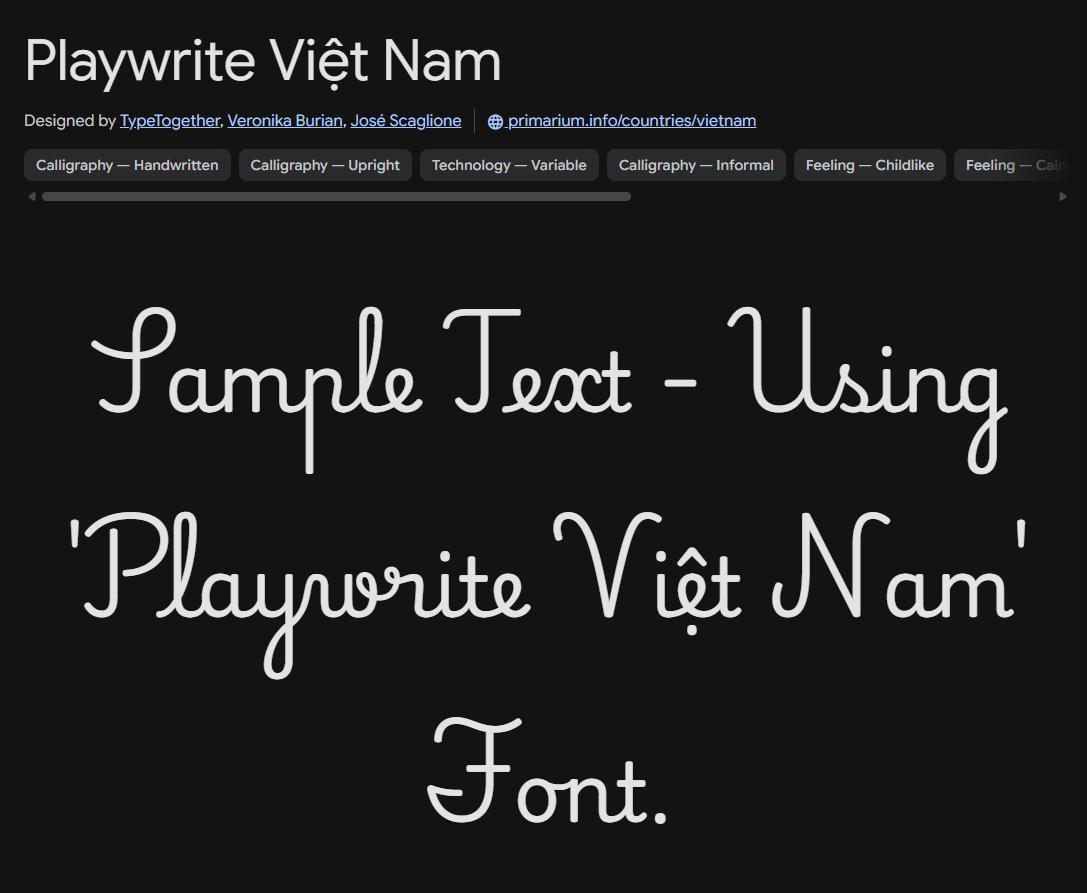
Playwrite Việt Nam, a specialized typographic solution engineered by TypeTogether's Veronika Burian and José Scaglione, bridges the gap between traditional Vietnamese primary school calligraphy and modern digital pedagogy through its sophisticated single-axis variable font architecture. By utilizing advanced interpolation to modulate weight, the typeface meticulously preserves the structural integrity of complex diacritic stacks and rhythmic ductus inherent to the region's handwriting standards. This variable implementation allows for seamless adjustments in stroke thickness without sacrificing the clarity of glyph terminals or the specific proportions required for early-age literacy, providing a semantically rich tool that harmonizes the technical precision of OpenType technology with the fluid, manual aesthetics of national educational scripts.
The Playwrite Việt Nam font family represents a sophisticated fusion of variable technology and educational typography, presenting an upright calligraphic structure that meticulously captures the informal, handwritten nuances of primary school curricula. By utilizing a variable axis to modulate between a rugged, vintage texture and a calm, childlike simplicity, the typeface achieves a versatile semantic resonance that ranges from loud, expressive bursts to a stable, happy, and playful aesthetic. This font family serves as a technically robust bridge between traditional penmanship and digital rendering, employing advanced glyph mapping to ensure that its humanistic, calligraphic origins remain legible and authentic across diverse visual environments.
Playwrite Việt Nam, meticulously engineered by TypeTogether to adhere to the cursive pedagogy of the Vietnamese primary education system, is fundamentally unsuitable for high-stakes enterprise environments such as legal document processing or real-time medical diagnostic interfaces where rapid cognitive processing of dense alphanumeric strings is critical. While its single variable weight axis offers fluid typographic flexibility, the font's inherent cursive ductus and continuous stroke joins-modeled after local instructional handwriting standards-introduce significant legibility barriers in low-resolution digital displays or complex data visualizations requiring high semantic clarity. Consequently, this typeface should be avoided in industrial safety signage or financial reporting dashboards, as its stylistic adherence to school-script morphology lacks the neutral aesthetic and structural rigidity of high-performance sans-serifs designed for institutional accessibility and transactional reliability.
Playwrite Việt Nam pairs naturally with minimalist, organic, or education-focused design styles that emphasize hand-drawn authenticity and personal connection. By integrating a continuous stroke architecture, the font achieves a high degree of fluid continuity that aligns perfectly with modern neo-humanist layout principles.
The typeface meticulously positions stacked diacritics to ensure they remain distinct and readable within the vertical rhythm of the script. Advanced anchor point positioning prevents collision between high-accent marks and neighboring glyphs, maintaining structural integrity across the entire UTF-8 Vietnamese character range.
While primarily optimized for editorial accents and display purposes, its clear letterforms allow for short-to-medium paragraph blocks in creative contexts. The x-height to ascender ratio is specifically calibrated to minimize ocular fatigue, though its cursive nature caps optimal legibility at a 16px threshold for dense body copy.
Geometric sans-serifs like Montserrat or clean grotesques like Inter provide a stable, neutral foundation that contrasts with the font's rhythmic curves. Utilizing a low-contrast sans-serif prevents visual competition, allowing the secondary typeface to serve as a structural backbone while Playwrite functions as the primary stylistic focal point.
The connected strokes and decorative loops can lead to visual crowding when the font size is significantly reduced on digital displays. Real-world rasterization tests indicate that anti-aliasing artifacts become prominent below 14pt, necessitating increased tracking to preserve the distinctness of complex Vietnamese glyphs.
This font is an excellent choice for brands seeking a personalized, approachable, or heritage-linked visual identity through a handwritten feel. Its vector-optimized bezier paths ensure crisp reproduction at infinite scales, making it technically robust for high-fidelity SVG exports in corporate brand books.
The availability of multiple weights allows designers to create a nuanced contrast between emphasized statements and descriptive sub-text. Variable font technology enables a granular interpolation of the weight axis, allowing for precise optical adjustments that balance the ink spread effect on high-density displays.
The typeface features high-precision outlines that remain smooth and professional even when enlarged for posters or commercial signage. PostScript hinting within the font file ensures that glyph terminals maintain their specific geometry without blurring during the CMYK offset printing process.
The font includes contextual alternates and ligatures that simulate the natural flow of human handwriting by connecting specific character pairs. The 'calt' (contextual alternates) feature dynamically modifies glyph entrance and exit strokes based on character adjacency to ensure seamless connective tissue between letters.
The default kerning is designed to be relatively tight to preserve the cursive illusion, which may require manual adjustment in compact mobile interfaces. Performance metrics suggest that using the 'font-variant-ligatures' CSS property is essential on mobile to prevent disjointed rendering of Vietnamese character strings on low-PPI screens.